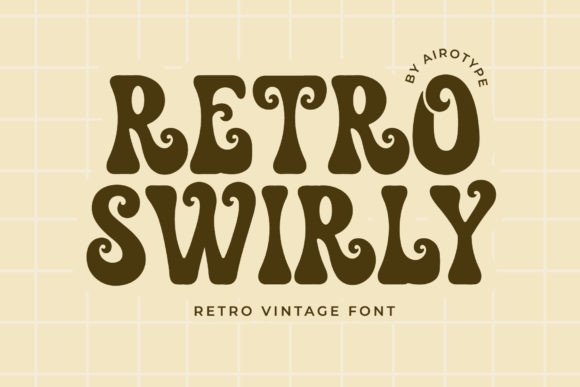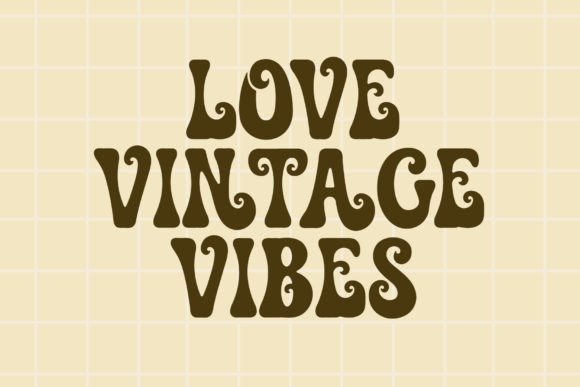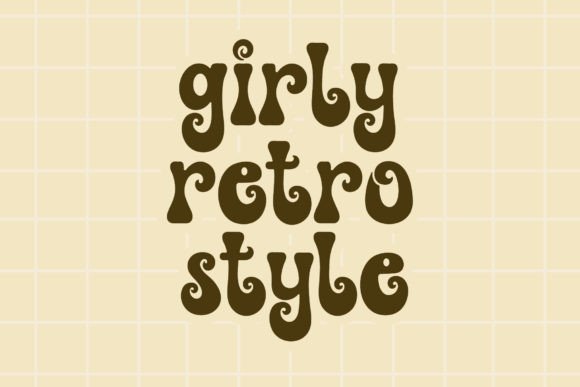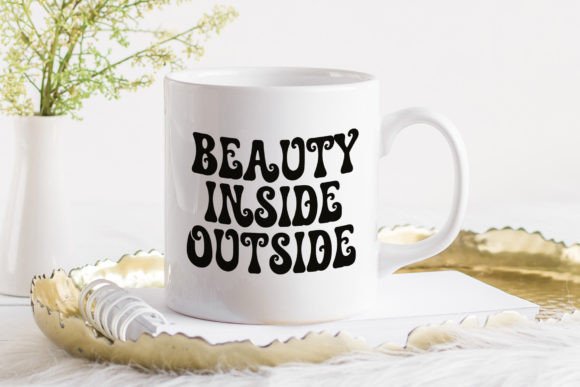
Retro Swirly Font
About the Retro Swirly Font
Unleash your creativity with Retro Swirly Font, a versatile font perfect for a wide range of applications. Retro Swirly is an elegant vintage font. It represents the 70s style with a modern touch with its swirl. It is bold, groovy, and bubbly.
Retro Swirly is a beautiful font for any project with elegant and retro vintage style, such as logos, crafting, t-shirts, branding, stickers, sublimation, quotes, greeting cards, and many more.
Retro Swirly thrives in applications requiring a bold, eye-catching presence. Headlines, short text blocks on posters or packaging, and logos benefit greatly from its distinctive character. It’s ideal for brands aiming for a retro-inspired, yet modern feel, particularly those in fashion, music, or lifestyle sectors. Avoid using it for lengthy body text or UI elements; its ornate style hinders readability in extended passages.
Pairing it with a clean sans-serif like Helvetica Neue for body copy creates a strong visual contrast, balancing Retro Swirly’s playful energy with a sense of order. Alternatively, a classic serif like Garamond could add a touch of sophistication, while a geometric sans-serif like Futura offers a more modern, streamlined feel. For a more whimsical outcome, consider a delicate script font as a secondary element.
The font projects a fun, energetic personality with a touch of vintage charm. Its boldness and playful swirls are well-suited to projects that demand attention and convey a sense of retro-inspired optimism.
Retro Swirly Font Usage Examples
Retro Swirly Font Example